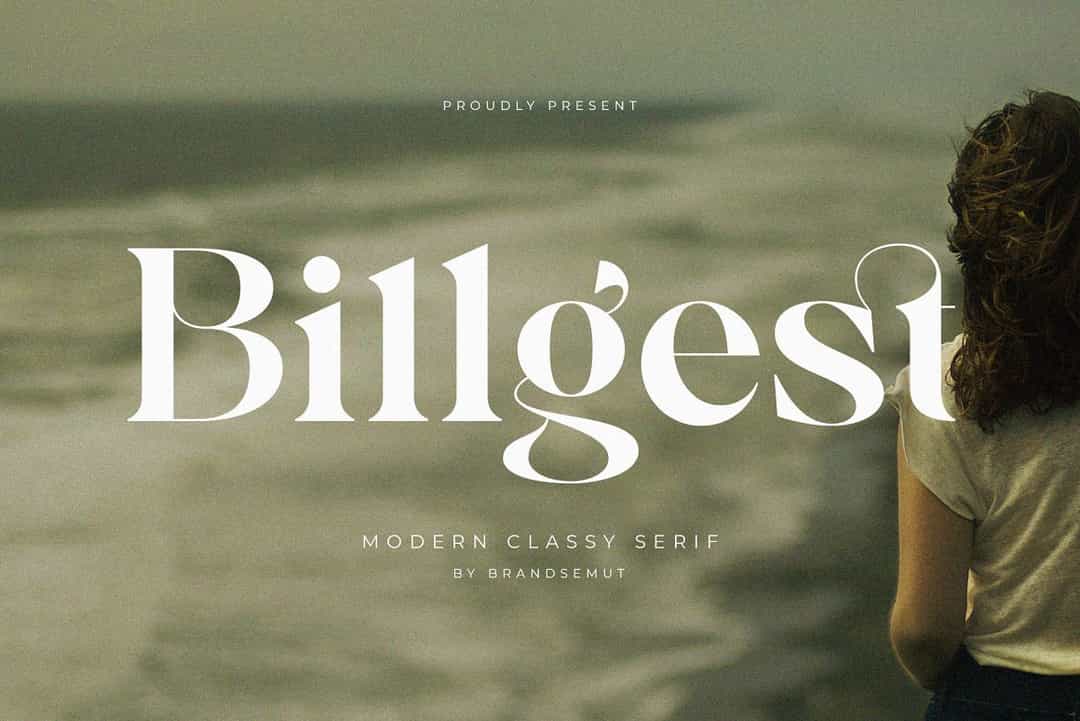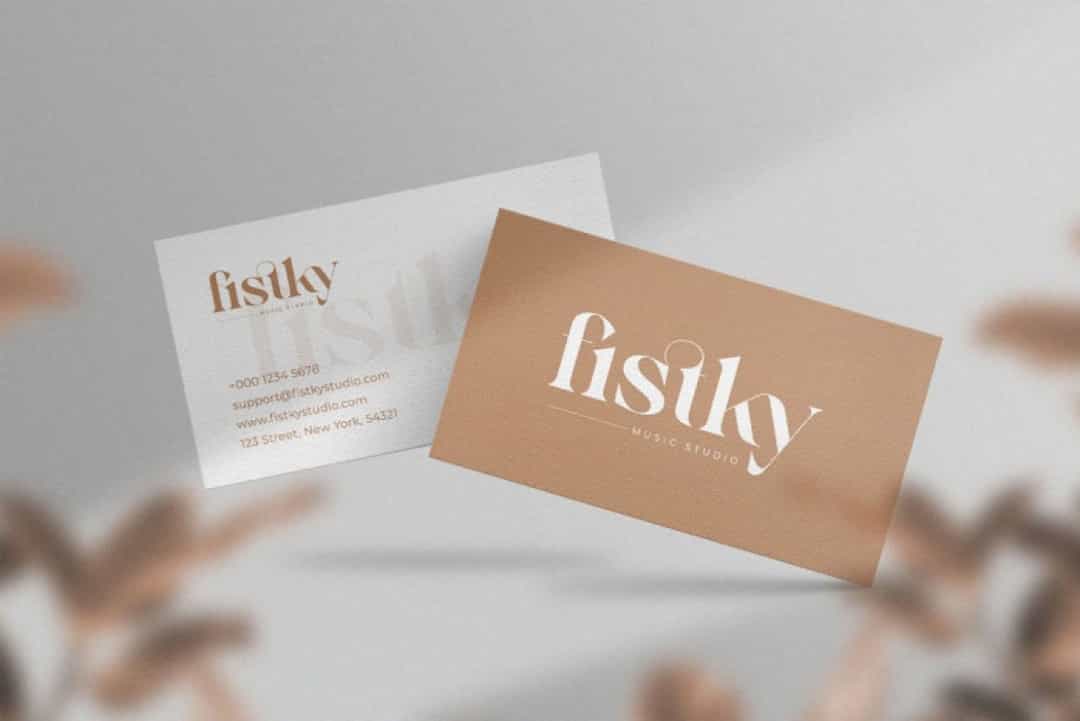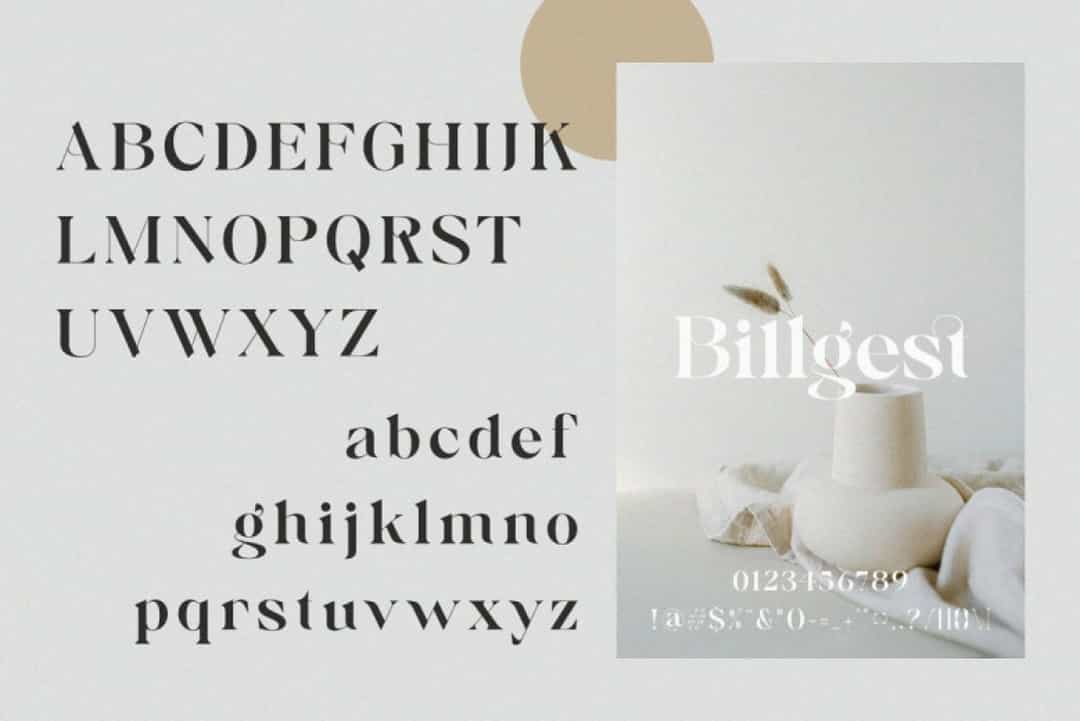
Billgest is an elegant serif typeface which makes an impactful statement in any project, ideal for headings and logos, branding packaging for products, magazines or invitations, etc. Billgest boasts sleek contours and clean lines to give every project an additional hint of elegance.